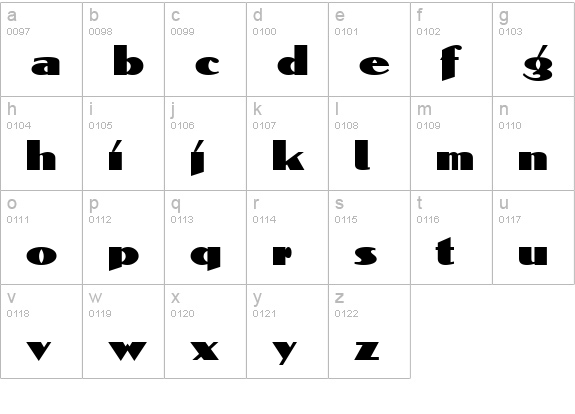
Dolmen ICG Font Details
Dolmen ICG font is a stunning display typeface that exudes elegance and sophistication. Its sleek lines and unique design make it perfect for projects that require a touch of modernity and creativity. The sharp angles and intricate details of Dolmen ICG font give it a distinctive look that is sure to captivate any audience. What makes Dolmen ICG font even more appealing is that it is free to download at FontsMarket.com. This means that you can easily access this stylish font for your personal or commercial projects without any cost. Whether you are designing a logo, creating a poster, or working on a website, Dolmen ICG font is a versatile choice that will elevate your work to the next level. With its bold presence and eye-catching features, Dolmen ICG font is a must-have for designers looking to make a statement. Download this exceptional font today and unleash your creativity with its limitless possibilities.